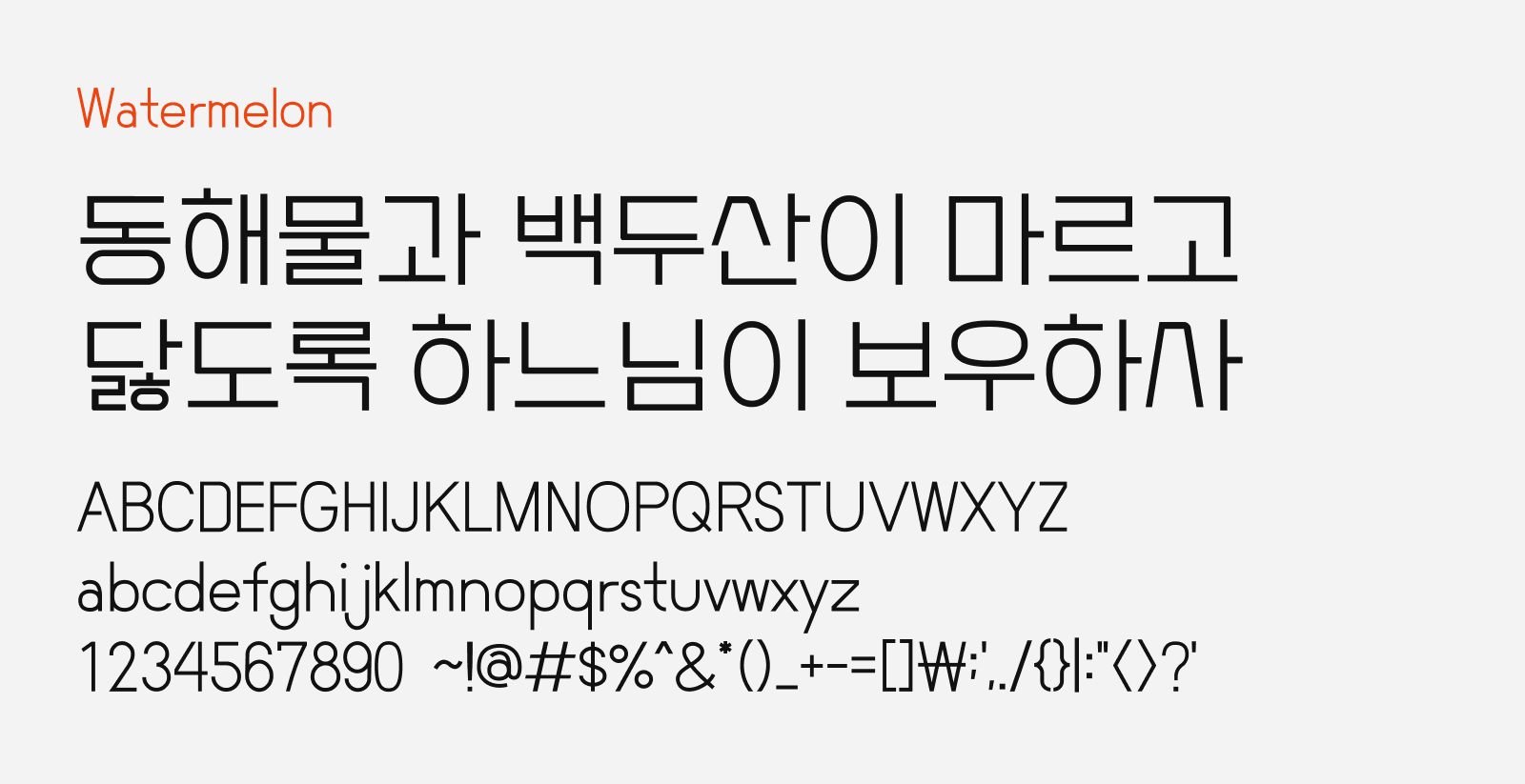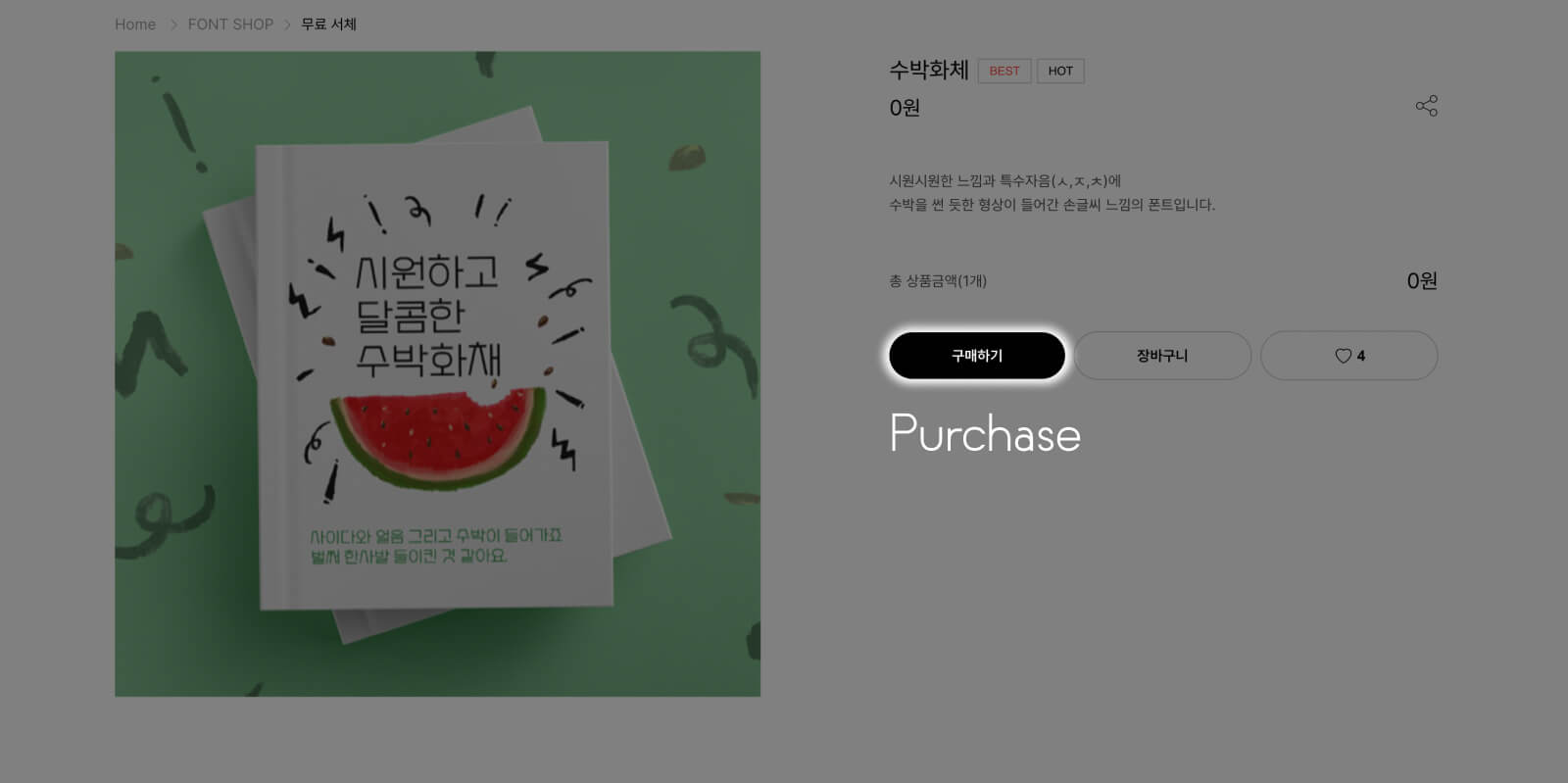
Watermelon
Watermelon (수박화체) is a refreshing and cool looking display style Korean font you can download for free. The characters are mostly constructed with straight lines, however the biggest and the most distinctive design feature is the specific consonants like “ㅅ”, “ㅈ”, and “ㅊ”, are shaped to resemble the appearance of sliced watermelon wedges. With its watermelon-inspired geometrical shape dominated with straight strokes, it gives a very “cool” summery and punchy feel.
Released by Early Font, Watermelon works great as display text for prints like posters, product labels, stationaries and more. Its distinctive look will sure capture a lot of eye balls. It supports both Korean and Latin script, and you can download this font for free and be used on commercial projects.